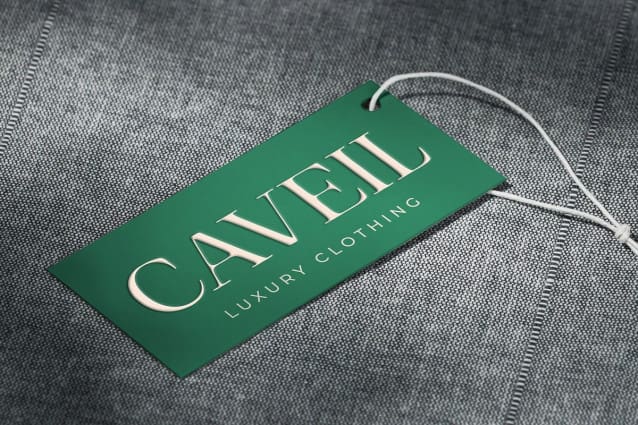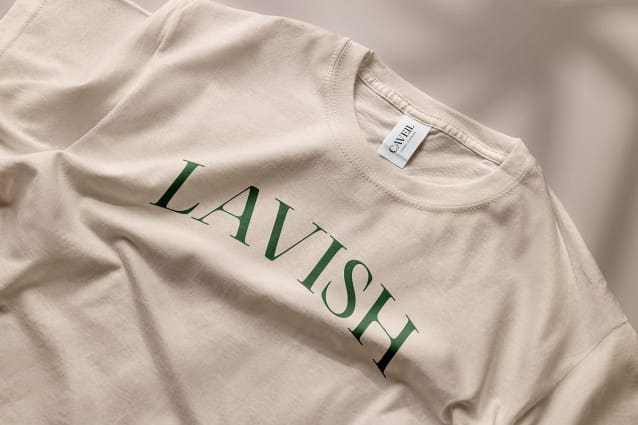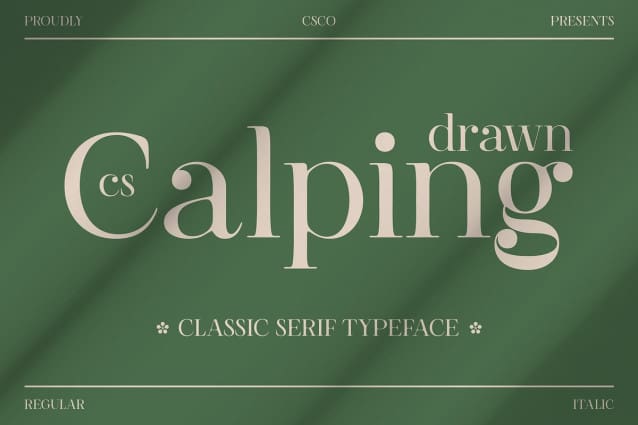
CS Calping Drawn Font
CS Calping Drawn Font is a classic serif font that radiates traditional elegance through its bold letterforms and exquisite fine details. This thoughtfully crafted design combines graceful lines with balanced proportions, establishing a sense of timeless sophistication that elevates any project. Its refined aesthetic makes it a versatile choice, perfect for conveying a luxurious and formal impression in various contexts.
Artisan Touch The distinctive drawn effect enhances the font’s charm, creating an appearance reminiscent of hand-written letters. This personal touch infuses character and warmth into every project, allowing this drawn font to stand out in a world of digital uniformity. The artisan quality of this font invites a closer look, making it a captivating choice for designs that seek to leave a lasting impression.
Versatile Applications Ideal for formal invitations, upscale branding, and editorial designs, this drawn font excels in applications that require a touch of luxury and tradition. Its elegant lines and strong structure ensure readability while also providing an aesthetically pleasing experience. Whether you are designing wedding invitations, crafting sophisticated branding materials, or creating compelling editorial layouts, this font adds a layer of depth and refinement to your designs.